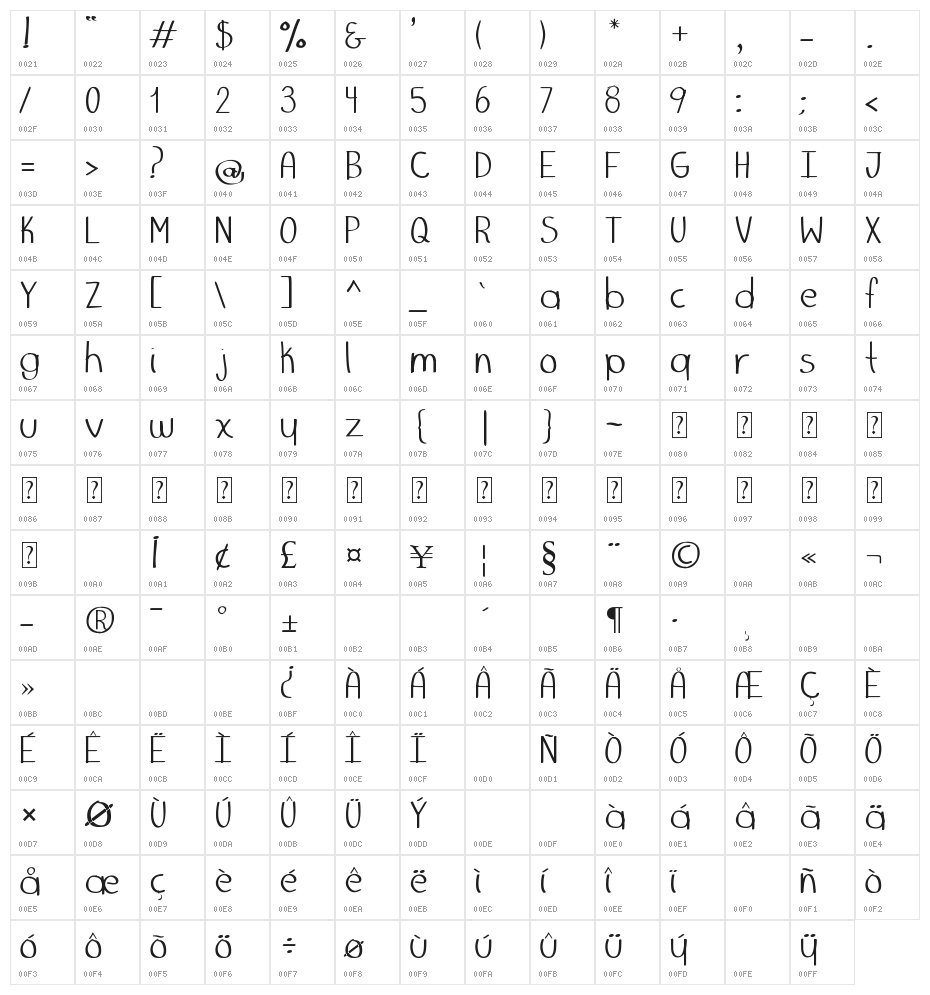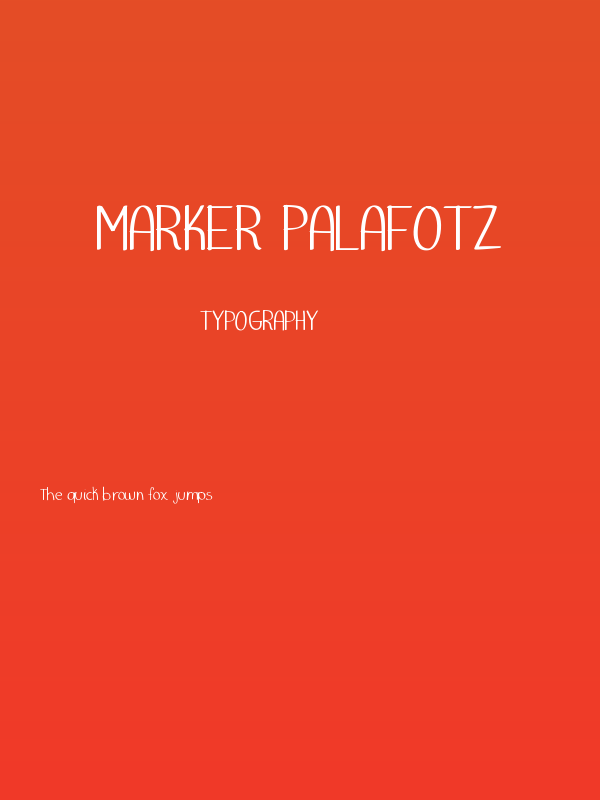
Marker Palafotz Font
Marker Palafotz Description
This font features a playful and casual handwritten style, characterized by its smooth, rounded edges and slightly irregular letterforms. The uppercase and lowercase letters maintain a consistent height, giving it a uniform appearance. The numerals and special characters follow the same playful aesthetic, making it versatile for various informal applications. The strokes are even and moderately thick, providing a balanced contrast that enhances readability while maintaining a whimsical charm. This font is suitable for projects that require a friendly and approachable look.
Overall StyleCasual
Use CaseHeadlines, Logos, Informal Text
Proposed ProjectsIdeal for children's books, greeting cards, casual branding, and social media graphics.